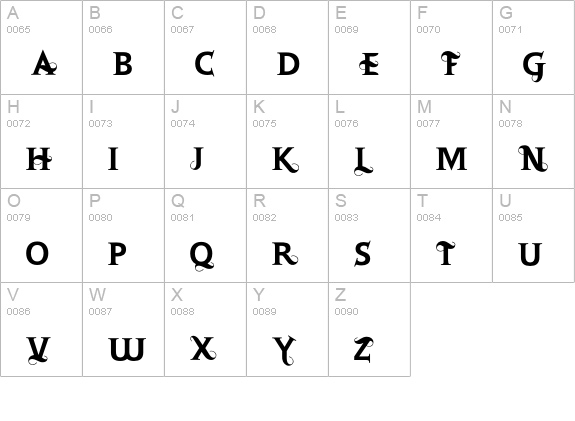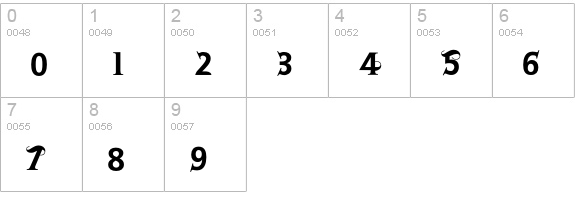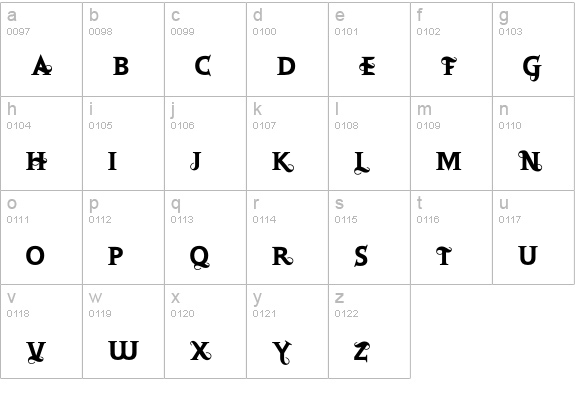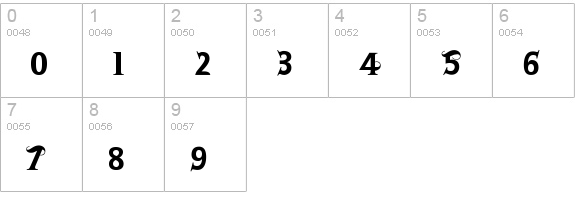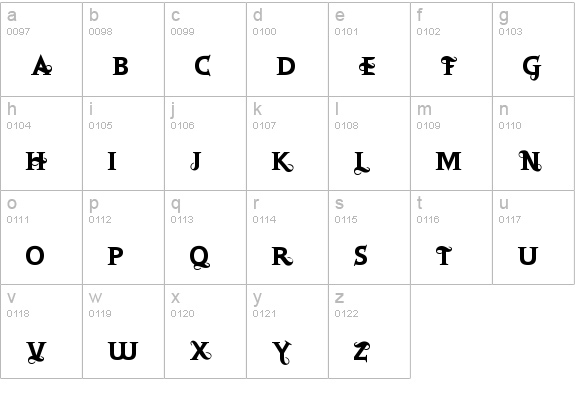
Retoric Font Details
Introducing Retoric, a captivating font that effortlessly blends elegance with modernity. With its sleek and refined letterforms, Retoric commands attention and adds a touch of sophistication to any design project. This versatile typeface is perfect for both headings and body text, making it a valuable addition to any designer's toolkit. Retoric's unique combination of sharp, angular lines and smooth curves creates a harmonious balance that is both eye-catching and pleasing to the eye. The precise spacing and clean lines ensure legibility at any size, making it suitable for both print and digital applications. What sets Retoric apart is not just its stunning aesthetics, but also its accessibility. This font is available for free download exclusively at FontsMarket.com. Yes, you read that right - Retoric can be yours without spending a dime. Whether you're a professional designer or a creative enthusiast, this is an opportunity you simply cannot miss. So why wait? Elevate your designs with the timeless beauty of Retoric. Download it for free today at FontsMarket.com and let your creativity soar.